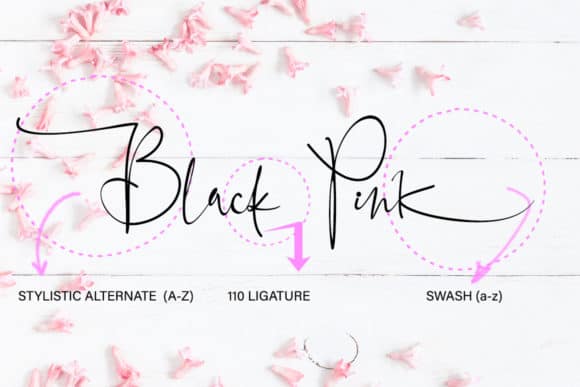
Black Pink Font
Black Pink Font, widely known for its functionality in copy and paste, resembles the Nashville font in a font preview. It is commonly used for designing logos.
This font is multipurpose and bendy, make its miles had to inform with a few particular typefaces to create a few suitable assignments reminiscent of wed rite invitation, antique format.